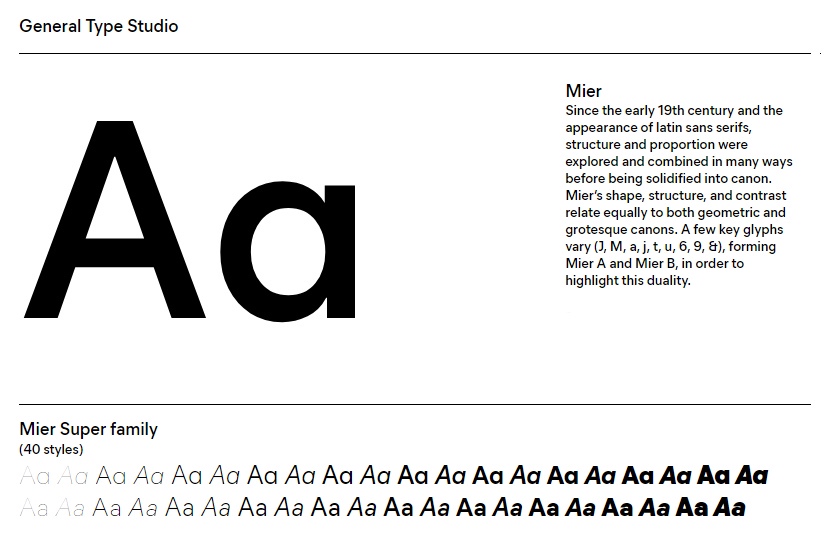
Mier Font
Mier Font is ideal for modern corporate branding, sleek user interfaces, contemporary editorial design, tech company communications, minimalist packaging, professional presentations, digital magazine layouts, clean web design, sophisticated business cards, and streamlined visual identity systems.
What makes Mier Font so exciting is its masterful balance of geometric precision and humanistic warmth that creates an instantly recognizable and thoroughly contemporary typographic voice for modern communication needs. This meticulously crafted typeface features refined letterforms with optimized proportions and subtle character nuances that immediately convey professionalism, approachability, and contemporary sophistication. The font's systematic construction and friendly aesthetic create an instant sense of trustworthy competence and modern accessibility, making it perfect for projects that need to communicate reliability, innovation, and human-centered design to audiences seeking both functional excellence and personal connection in their professional interactions.
The Mier Font family typically includes comprehensive weight variations and contemporary styles, often featuring thin, light, regular, medium, and bold weights along with corresponding italic versions. Professional font families frequently offer extensive character sets including multiple numeral styles, currency symbols, and international language support that ensure optimal typography across diverse global communication requirements and complex design applications.
The versatility of Mier Font makes it particularly effective for digital environments where consistency and scalability are essential for brand recognition and user experience success. Brand strategists and UX designers will find this font especially valuable for projects that must maintain visual coherence across multiple touchpoints while supporting complex information hierarchies and diverse content requirements.
What distinguishes Mier Font is its remarkable ability to project authority while maintaining approachability across all communication contexts. This sophisticated characteristic makes it suitable for both corporate applications and consumer-facing communications where establishing trust and credibility is crucial for business success.
Professional designers appreciate that Mier Font brings invaluable contemporary relevance to projects across industries including technology, finance, healthcare, and professional services. Its balanced character and modern appeal make it essential for organizations seeking comprehensive typographic solutions that will remain effective and current across evolving design trends and changing communication needs.
The systematic design excellence of Mier Font ensures optimal performance across all contemporary communication challenges while maintaining the human touch that distinguishes exceptional typography.